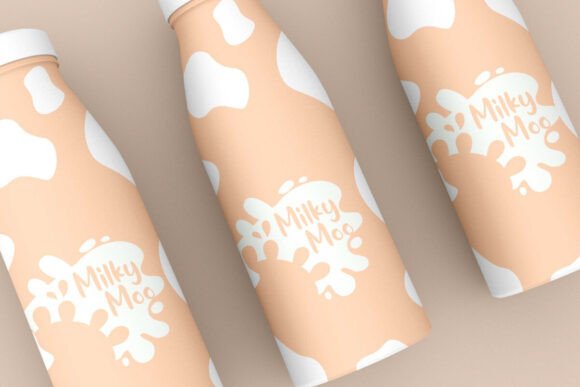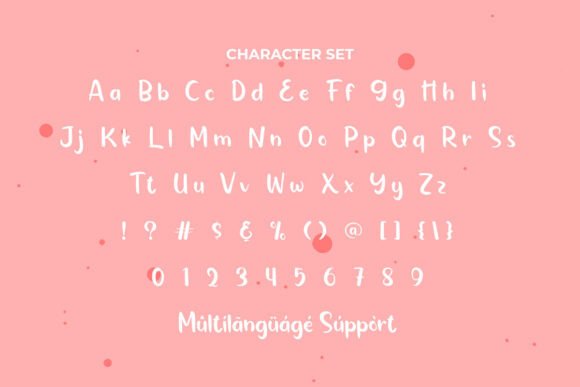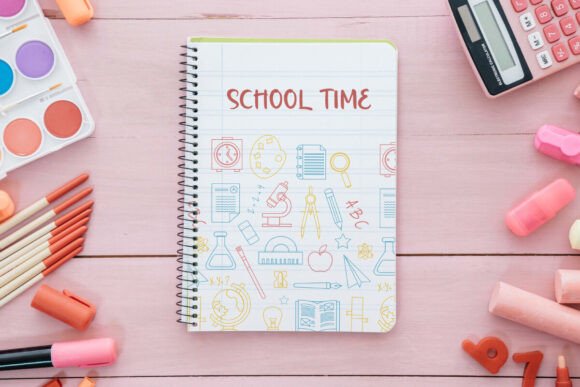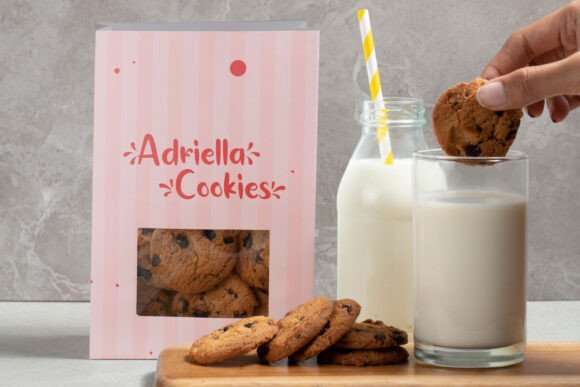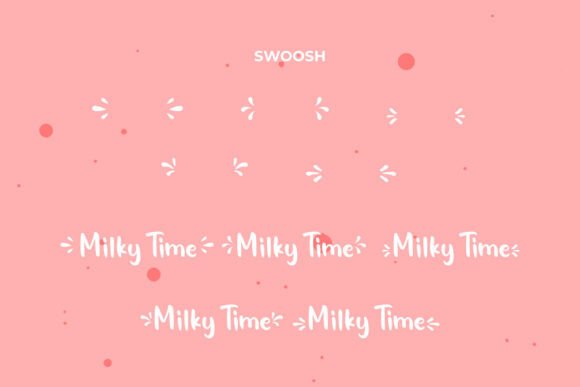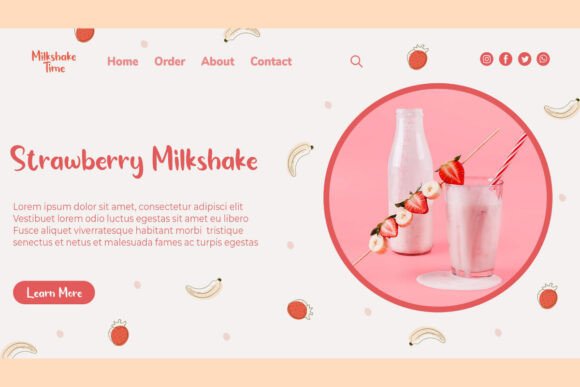
Introduction to Milky Time Font
Milky Time Font is a fun handwriting display font.
This adorable font will let you use it in many designs that need a cute look It will be suitable for any industry, such as advertisement, bakery and pastry, café, event or festival, fashion, food and beverage, furniture, printing, publishing, and more.
Key Features of Milky Time Font
Why Choose Milky Time Font?
Milky Time Font offers exceptional quality and versatility, making it a valuable addition to your design toolkit. Whether you’re creating for personal projects or commercial use, Milky Time Font delivers professional results.